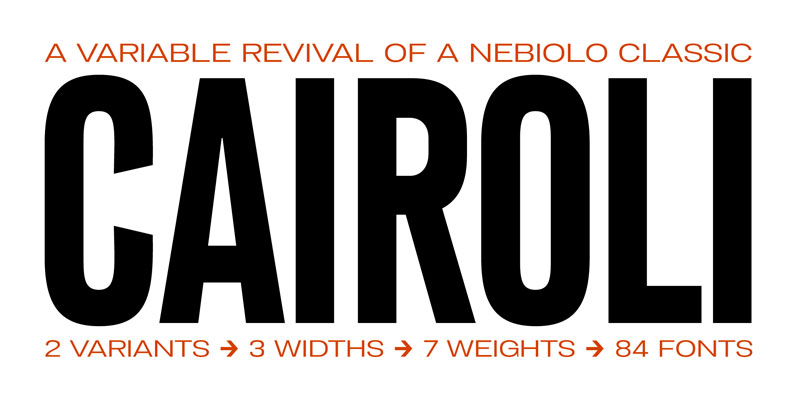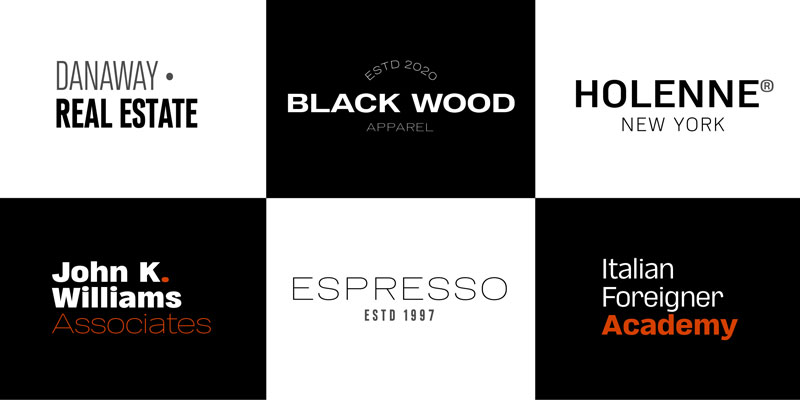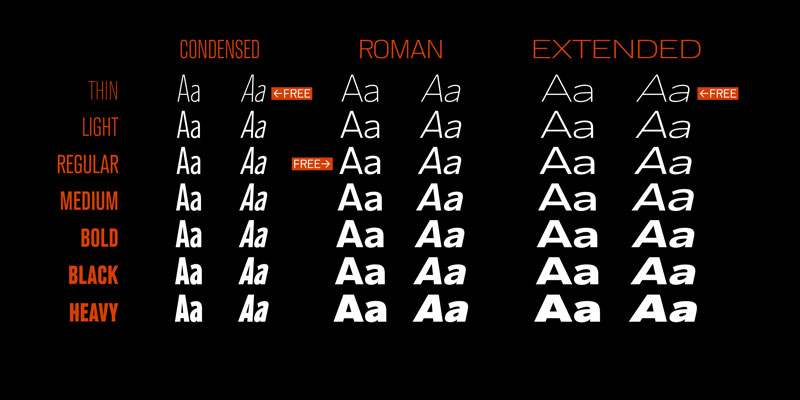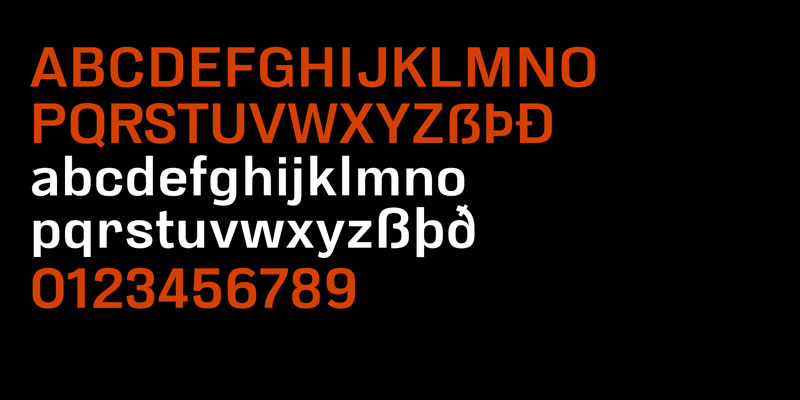
Cairoli Now Font Family
Born as an exercise in subtlety and love for lost letterforms, Cairoli Now stands, like its lead ancestor from a century ago, at the crossroads between artsy craftsmanship and industrial needs.
Its deviations from the norm are small enough to give it personality without affecting readability, and the expanded weight and width range make it into a workhorse superfamily with open type features (alternates, stylistic sets, positional numbers) and coverage of over two hundred languages using the Latin extended alphabet.